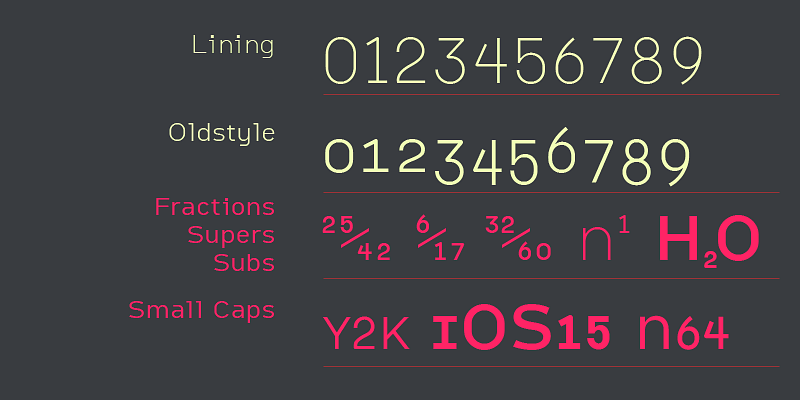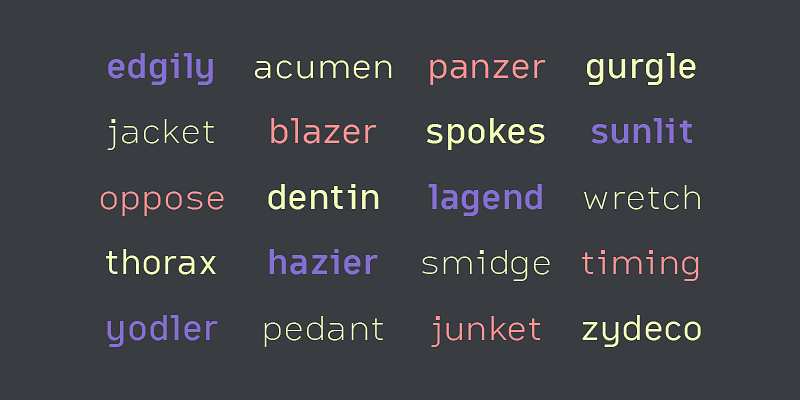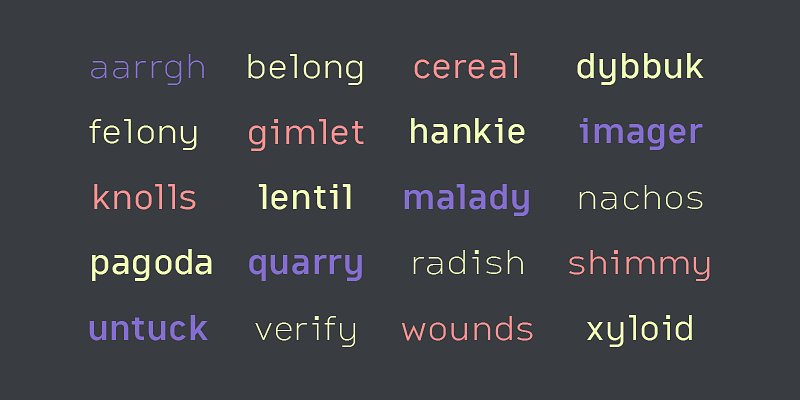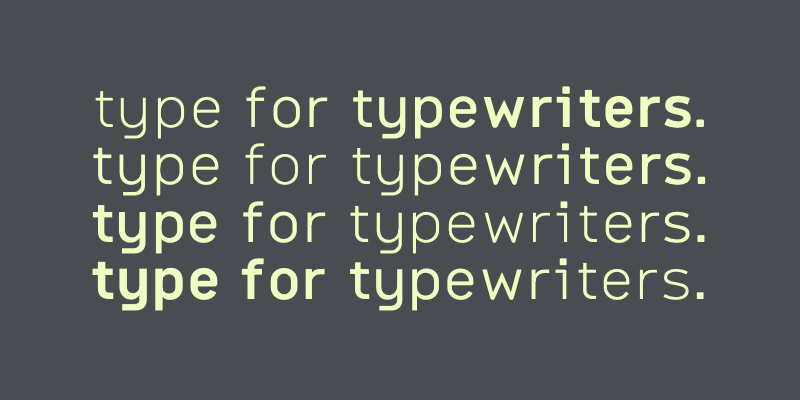
Citrine Variable draws upon the machine-driven typography of the 1980s American PC boom. A large x-height means easy onscreen reading and a round joint means friendliness. Citrine starts with Epoca’s essential widths and spaces—made for the Hermes 3000 typewriter—then adds tension with flat sides in curved forms, a double-barrel lowercase a, and the tighter spacing necessary for modern screen use. Citrine has true small caps, sized to the lowercase, and can be set as unicase.